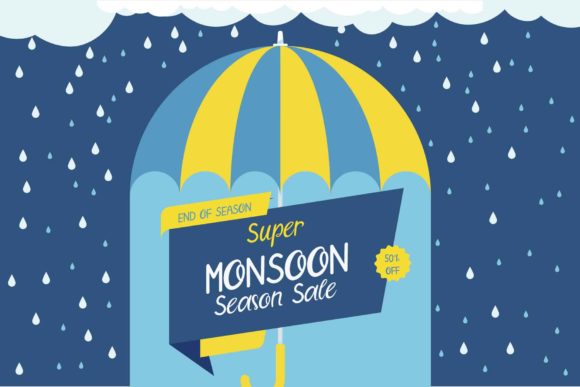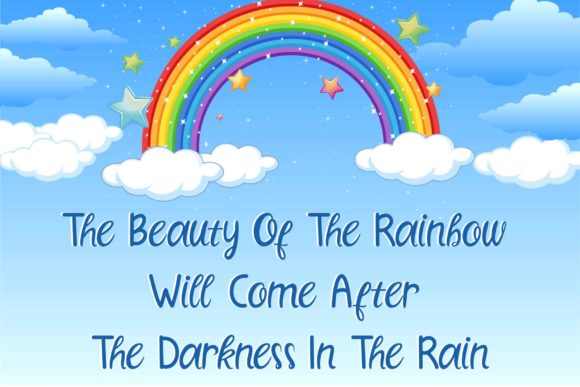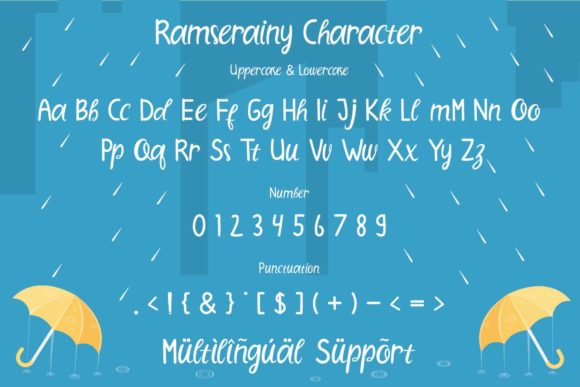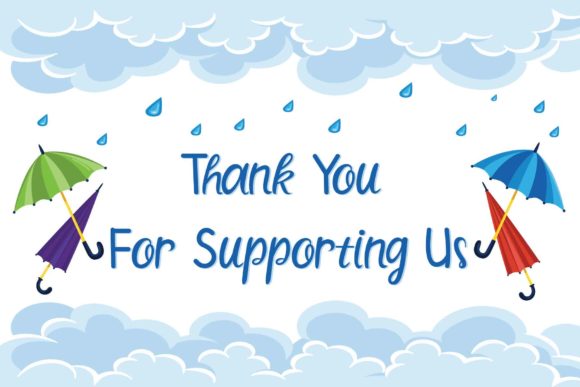
Introduction to Ramserainy Font
Ramserainy is a simple and trendy handwritten font.
It can be added to products such as quotes, labels, photography, watermarks, logos, branding and so much more .
Key Features of Ramserainy Font
Why Choose Ramserainy Font?
Ramserainy Font offers exceptional quality and versatility, making it a valuable addition to your design toolkit. Whether you’re creating for personal projects or commercial use, Ramserainy Font delivers professional results.